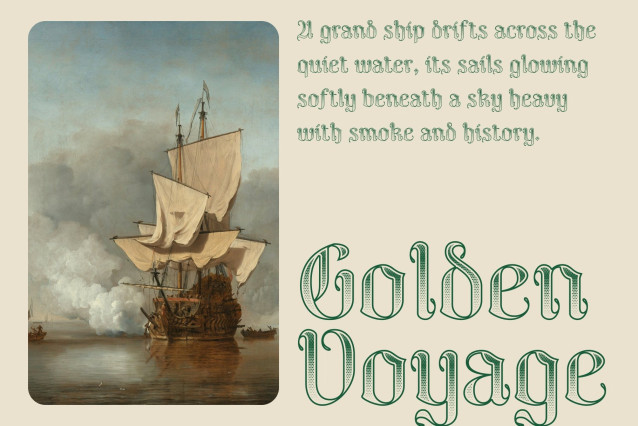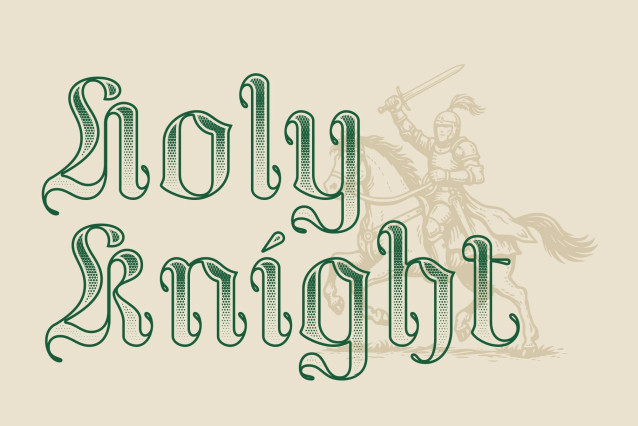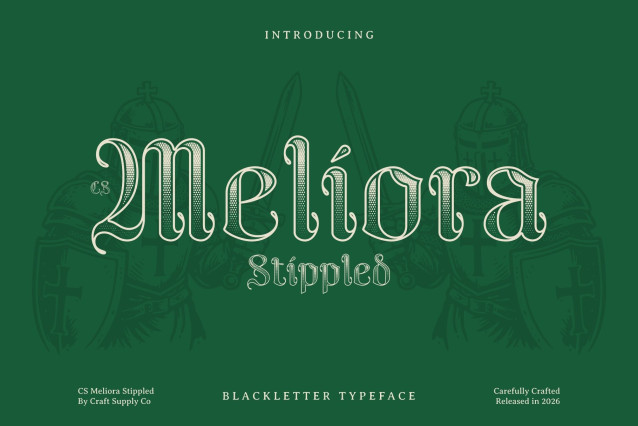
CS Meliora Stippled Font
CS Meliora Stippled – Modern Blackletter Display Font
Bold Tradition Meets Contemporary Edge
This font reimagines classic blackletter with a refined modern perspective. Rooted in Gothic tradition yet shaped with cleaner contours and a streamlined structure, this display font balances historical richness with contemporary usability.
Dramatic, Stylish, and Commanding
Strong contrast, angular strokes, and ornamental details give the font a powerful architectural presence. It brings intensity and character to music branding, posters, logotypes, and editorial headlines perfect for designs that demand a confident and artistic voice.
Stippled Texture for Artistic Depth
The stippled finish introduces a dense dotwork texture that adds a handcrafted, tactile dimension to the letterforms. This subtle detailing enhances the gothic aesthetic with a vintage, inked feel while keeping the font visually fresh and expressive.